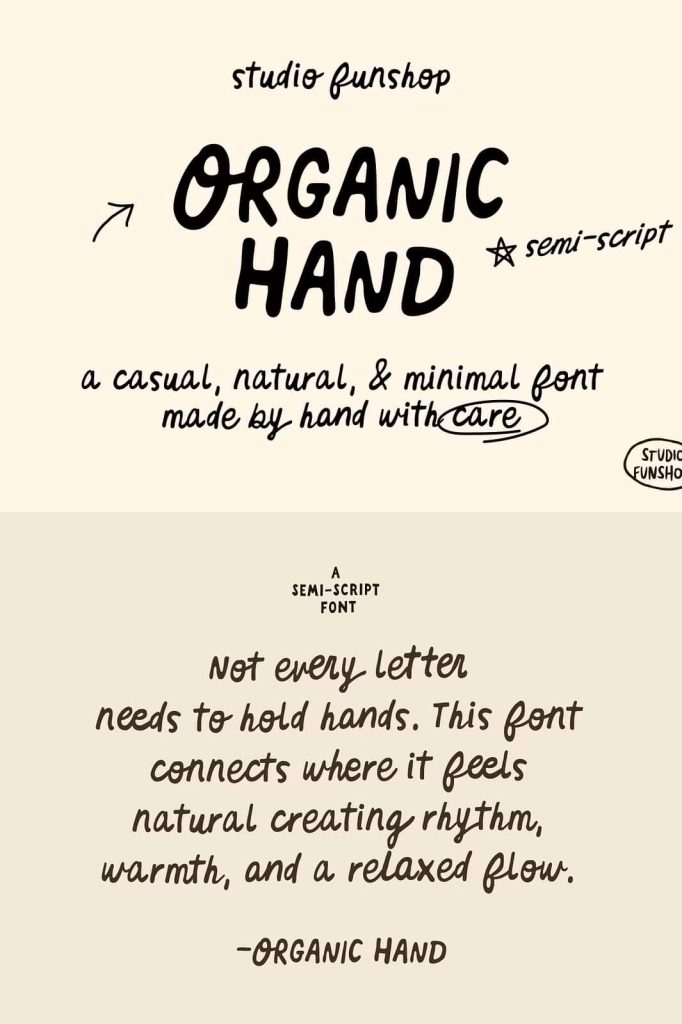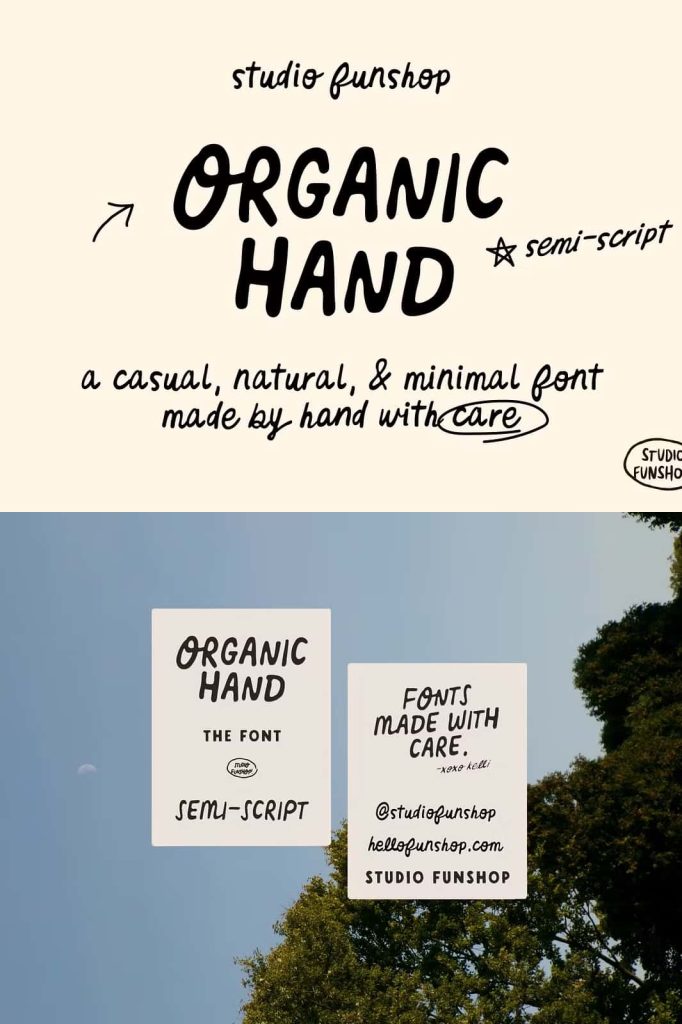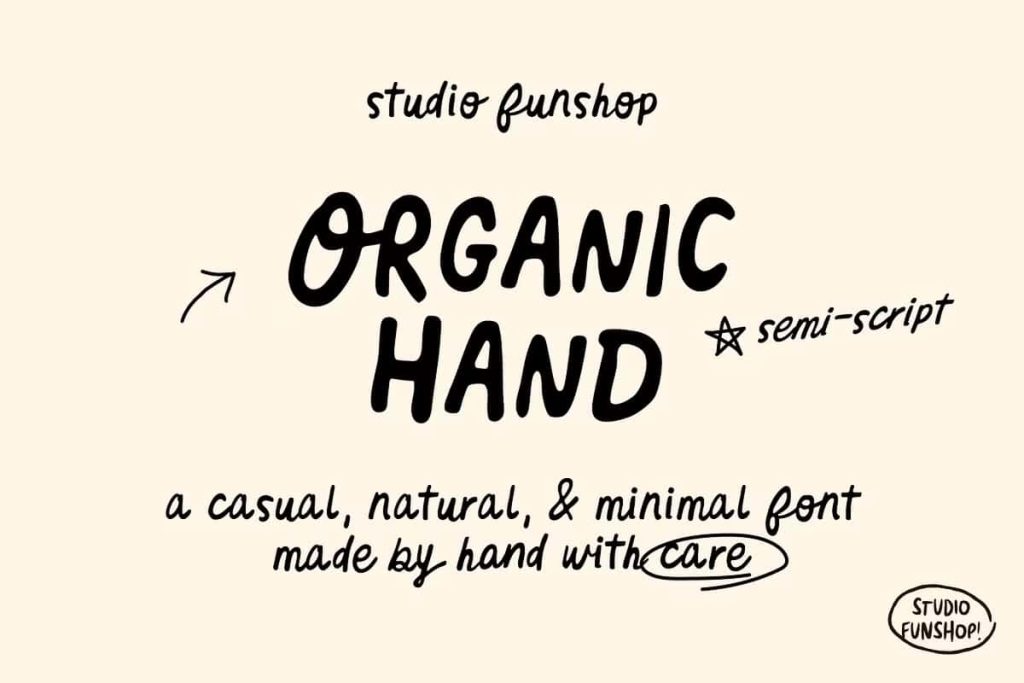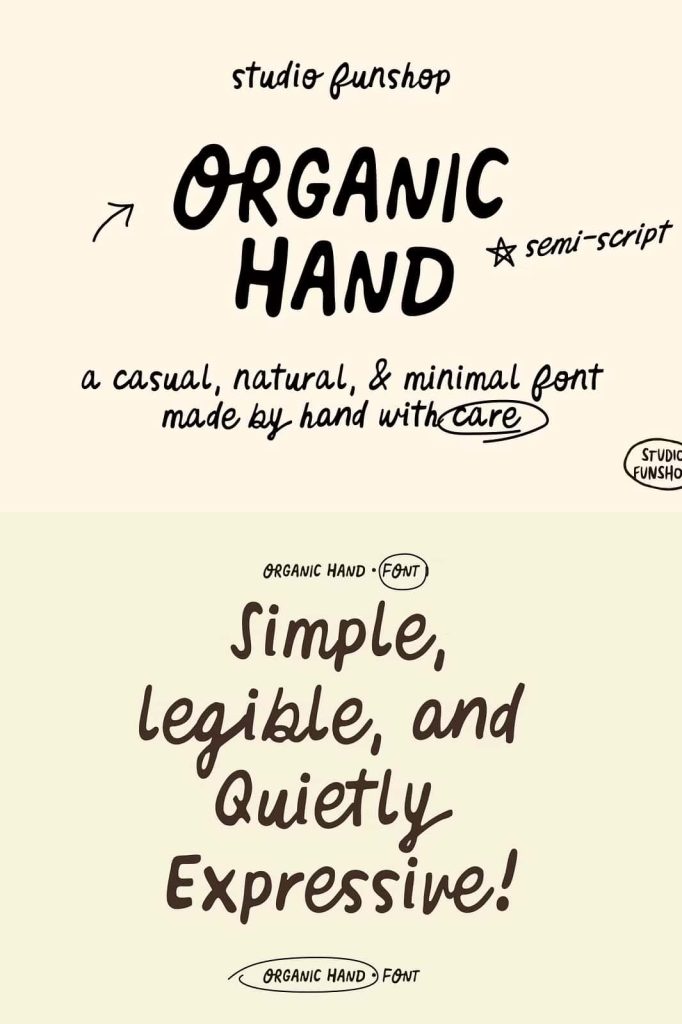
Organic Hand Semi Script Font
Organic Hand is a beautifully crafted semi-script font that combines the readability of printed lettering with the graceful movement of handwritten script. Designed to feel natural, relaxed, and authentic, this typeface captures the charm of genuine handwriting while maintaining the clarity needed for modern design applications. Every character has been carefully drawn by hand, resulting in a font that feels personal, expressive, and full of life.
Unlike traditional script fonts that can sometimes appear overly decorative, Organic Hand strikes the perfect balance between simplicity and creativity. Its unique semi-script structure allows designers to communicate warmth and personality without sacrificing readability. This versatile style makes it suitable for a wide range of creative projects, from branding and packaging to invitations, social media content, and editorial design.
The handcrafted nature of Organic Hand brings a sense of authenticity to every composition. Each letter reflects the subtle imperfections and natural variations found in real handwriting, creating a visual experience that feels approachable and human. Whether used for professional branding or personal creative work, this font helps establish a genuine connection with audiences through its relaxed and expressive appearance.
Hand-Drawn Letterforms with Authentic Character
At the heart of Organic Hand is a commitment to authenticity. Every letter has been individually drawn by hand to capture the natural movement and spontaneity of handwriting. Rather than relying on rigid geometric forms, the font embraces subtle variations in shape, stroke, and spacing that create a more organic and engaging visual style.
These carefully crafted details give Organic Hand its distinctive personality. The slight wobbles, gentle curves, and natural imperfections make every word feel unique and handcrafted. This attention to detail helps create typography that feels warm, welcoming, and emotionally engaging.
For designers seeking a font that communicates sincerity and creativity, Organic Hand offers a refreshing alternative to overly polished or mechanical typefaces.
The Perfect Blend of Print and Script
Organic Hand successfully bridges the gap between traditional printed lettering and flowing script typography. Its semi-script construction combines the best qualities of both styles, delivering excellent readability alongside natural movement and visual charm.
The printed elements provide structure and clarity, ensuring that text remains easy to read across various applications. Meanwhile, the script-inspired strokes add softness and expression, creating a harmonious balance that feels both professional and personal.
This unique combination makes Organic Hand incredibly versatile. Designers can use it confidently in branding projects, marketing materials, product packaging, and digital content where both style and legibility are equally important.
Natural Curves and Relaxed Strokes
One of the defining characteristics of Organic Hand is its relaxed and effortless flow. The font features smooth curves, gentle transitions, and natural stroke patterns that mimic the rhythm of authentic handwriting. These design elements create a sense of movement that helps text feel dynamic and alive.
The relaxed structure gives the font a calm and approachable personality, making it ideal for brands and projects that value authenticity and human connection. Rather than appearing rigid or formal, Organic Hand communicates comfort, creativity, and individuality through every letter.
This natural flow allows the font to enhance both short headlines and longer text elements while maintaining visual consistency and charm.
Ideal Uses for Organic Hand Semi Script Font
- Brand identity and logo design
- Product packaging and labels
- Social media graphics and content creation
- Wedding invitations and stationery
- Greeting cards and personalized messages
- Website headers and promotional banners
- Editorial layouts and magazine features
- Creative marketing campaigns
- Handmade product branding
- Lifestyle and wellness business designs
Create Stronger Emotional Connections
Modern audiences increasingly appreciate designs that feel genuine and human. Organic Hand helps designers achieve this by introducing a handcrafted quality that fosters trust and emotional engagement. Its natural appearance encourages viewers to connect with the message on a deeper level, making communication feel more personal and authentic.
This quality is especially valuable for brands that emphasize creativity, craftsmanship, sustainability, wellness, or personal service. The font’s approachable style helps communicate values such as honesty, warmth, and attention to detail, strengthening the relationship between brands and their audiences.
By incorporating Organic Hand into visual projects, designers can create experiences that feel less corporate and more meaningful.
For designers who value authentic expression and timeless handcrafted design, Organic Hand Semi Script Font is an excellent addition to any typography collection. It transforms ordinary text into meaningful visual communication, helping every message feel more personal, natural, and alive.